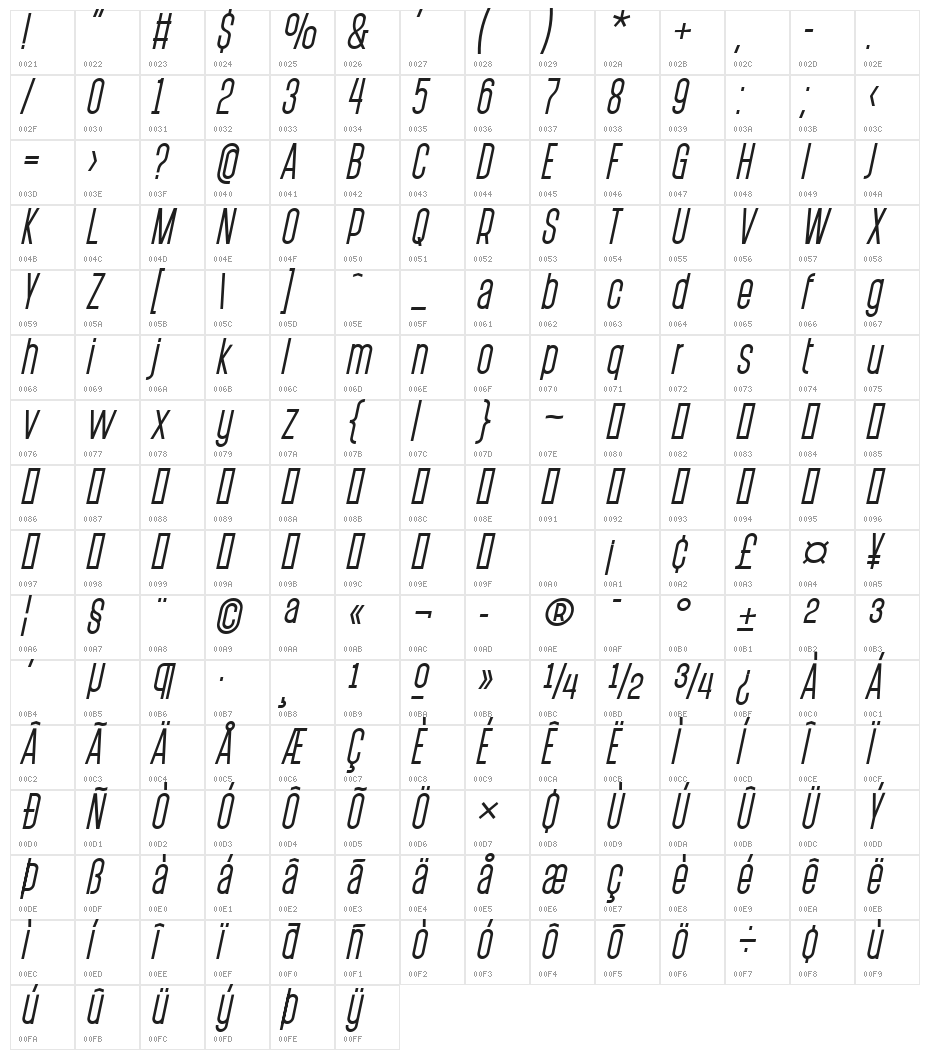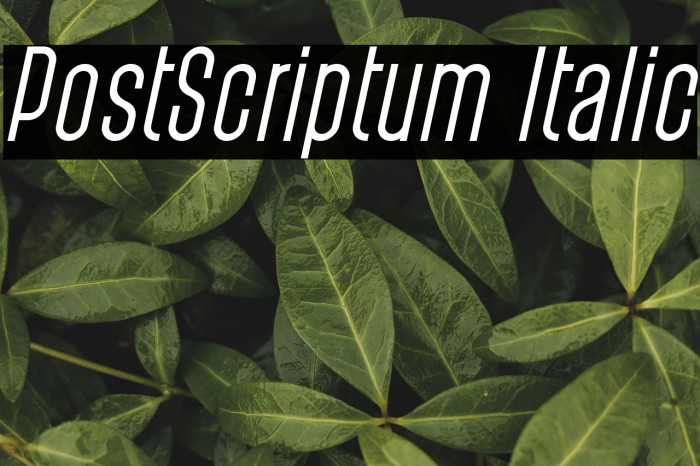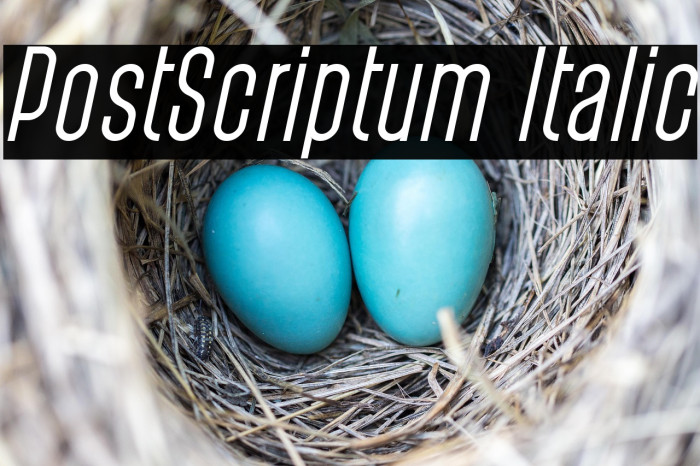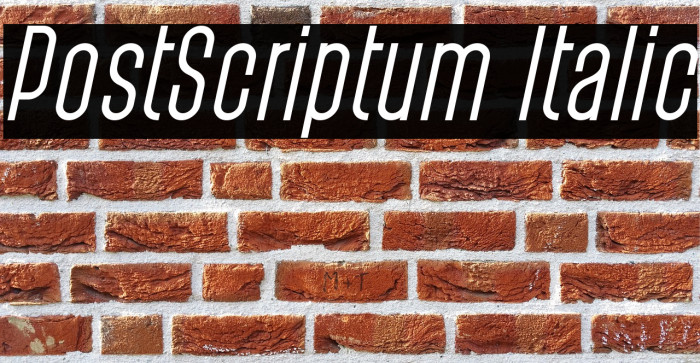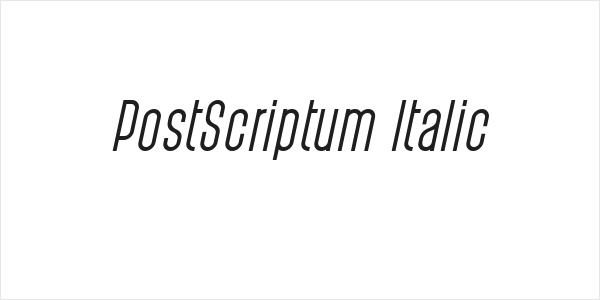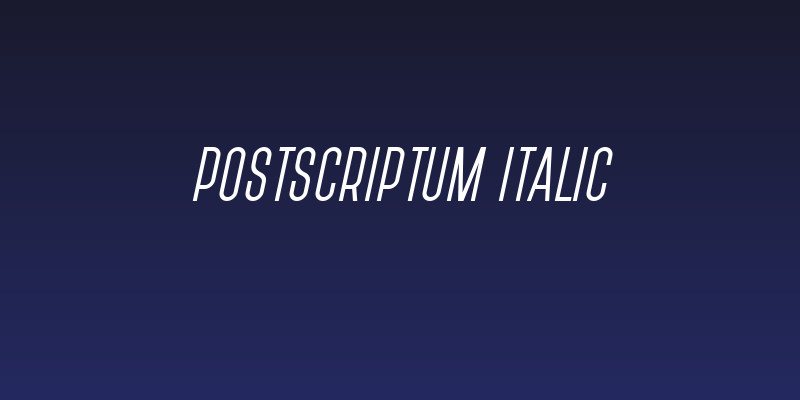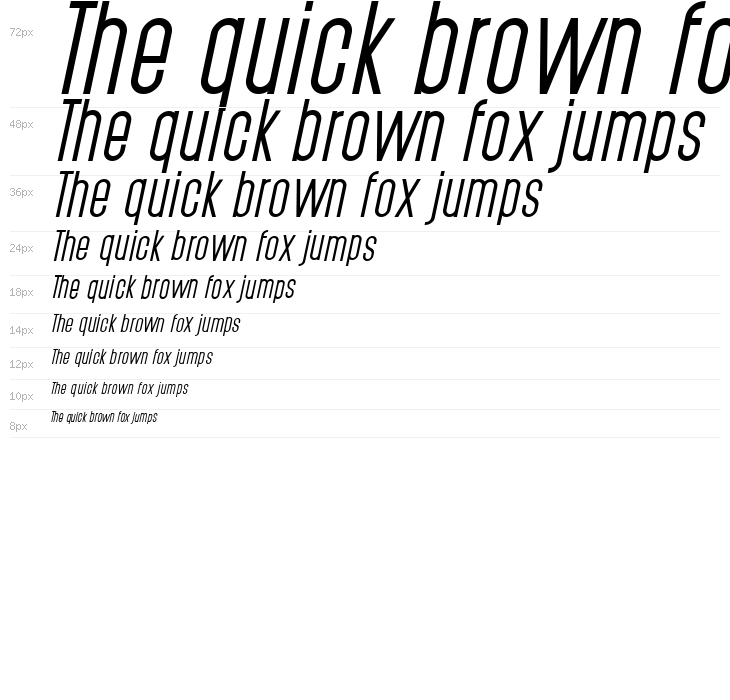
PostScriptum Italic Font
PostScriptum Italic Description
This font features a sleek, italicized design with elongated letterforms that convey a sense of movement and modernity. The characters are narrow and tall, giving them a condensed appearance, which is further emphasized by the tight spacing between letters. The strokes are consistent in thickness, providing a uniform look across all characters. This font's style is both contemporary and professional, making it suitable for a variety of applications. The numerals and special characters maintain the same elegant and streamlined aesthetic, ensuring consistency throughout any text.
| Use Case | Headlines, Logos, Editorial Design |
| Proposed Projects | Ideal for branding, editorial design, and advertising where a modern and sleek appearance is desired. |